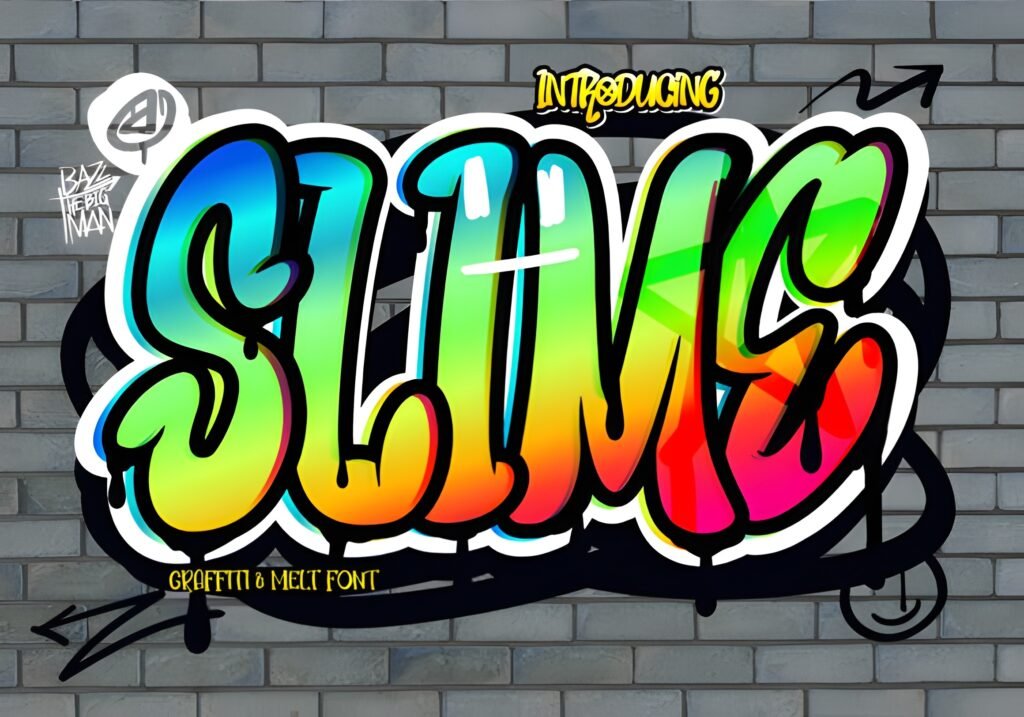
🎨 Slime — Graffiti Display Font with Urban Street Vibe
Unleash bold creativity with Slime, a graffiti‑inspired display font that brings the raw energy of street art into your designs. With its edgy shapes and urban character, this typeface captures the rebellious spirit of the city, making it perfect for projects that need to stand out with attitude.
Ideal for t‑shirts, sportswear, logos, posters, advertisements, album covers, and digital graphics, Slime adds a gritty yet stylish touch to any composition. Its bold strokes and expressive forms create a sense of movement and authenticity, echoing the walls of city streets and the culture of modern graffiti.
With Slime, your words become more than text — they transform into powerful visual statements full of energy, style, and street‑art flair.